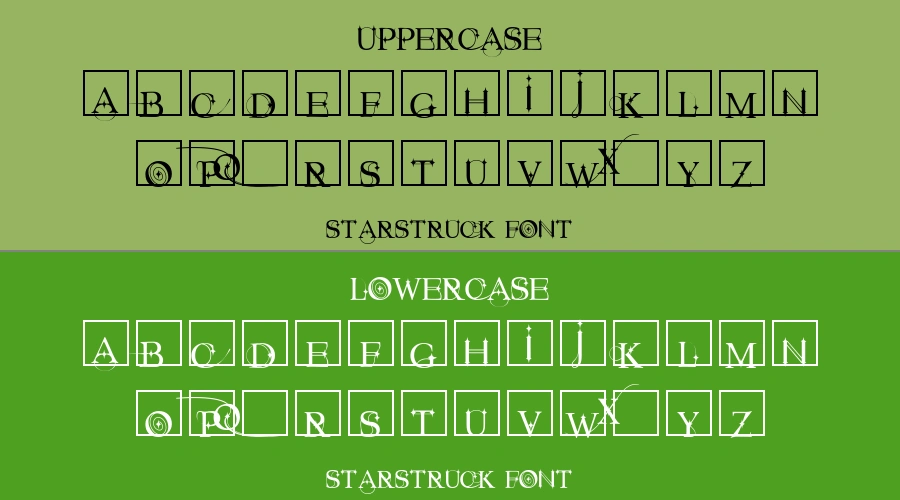
About Starstruck Font
Starstruck Font stands out for its distinctive combination of straight stems and visual appeal. Ideal for literary works, it provides the versatility and brand differentiation that professional projects demand. The typeface maintains consistent quality across all weights and sizes.
Key features include refined structural clarity and practical tabular figures, enhancing typographic expression. In compliance seals applications, Starstruck Font demonstrates exceptional large format impact. The stroke contrast and contemporary relevance contribute to its distinctive character and professional appeal.